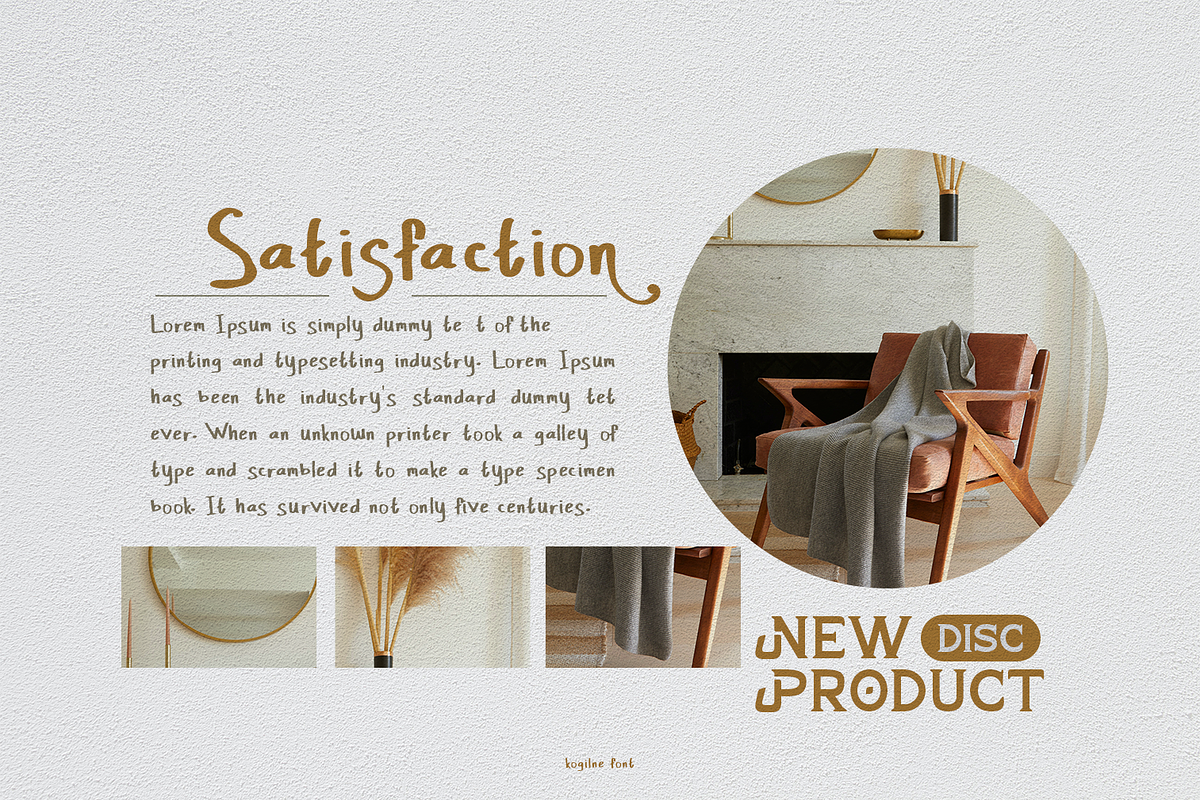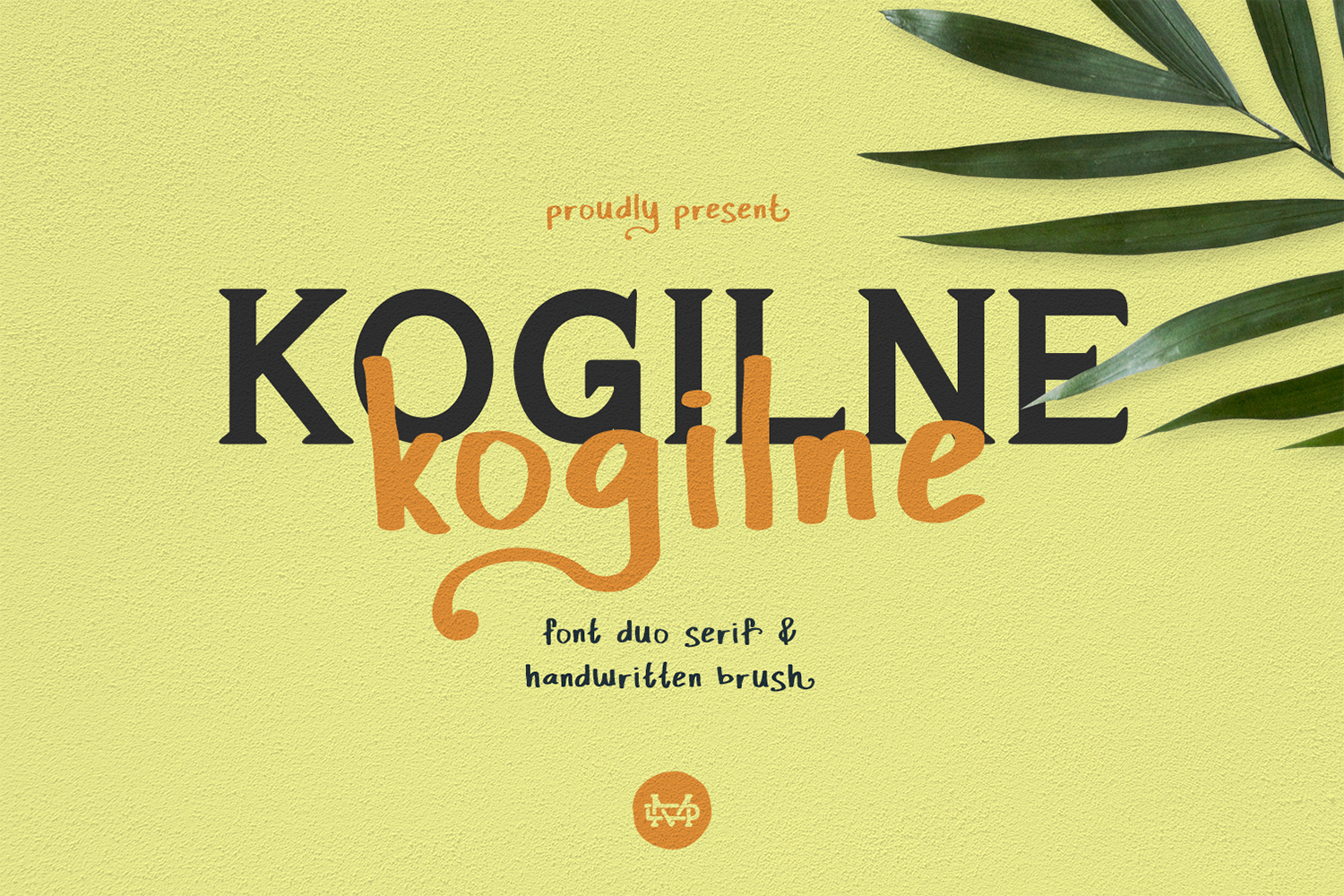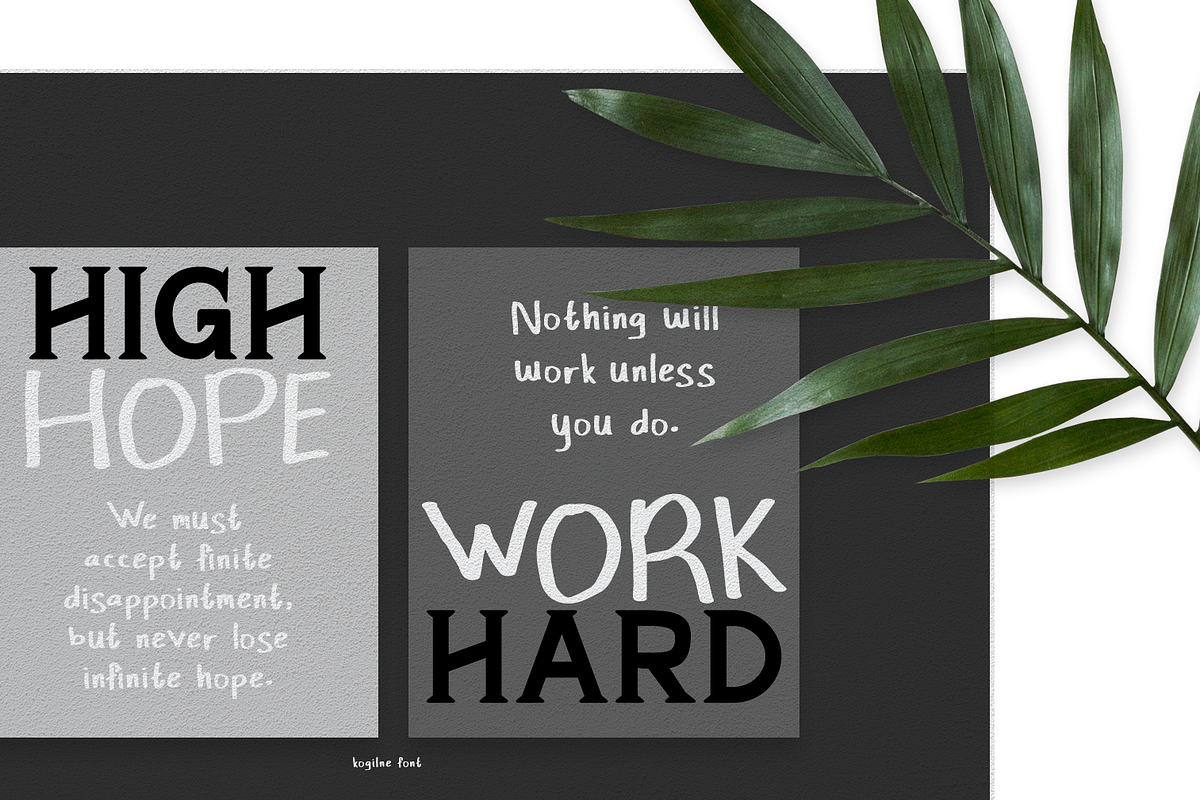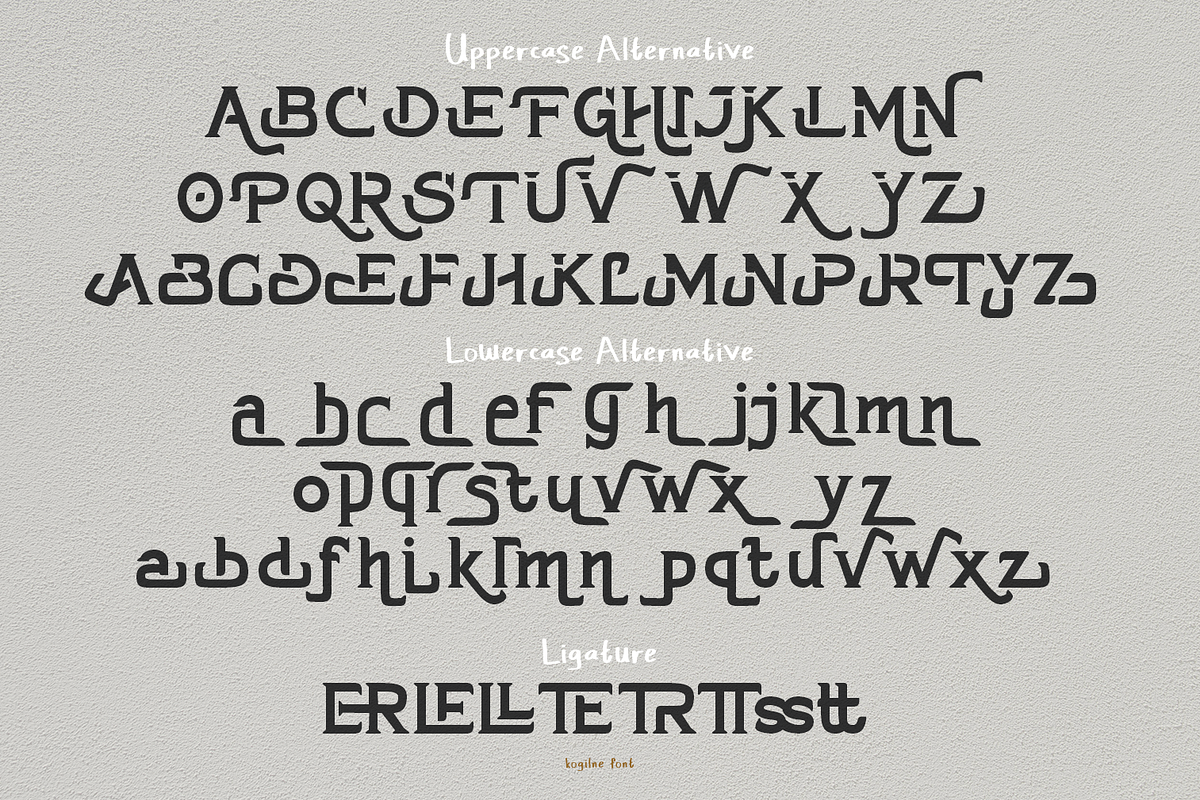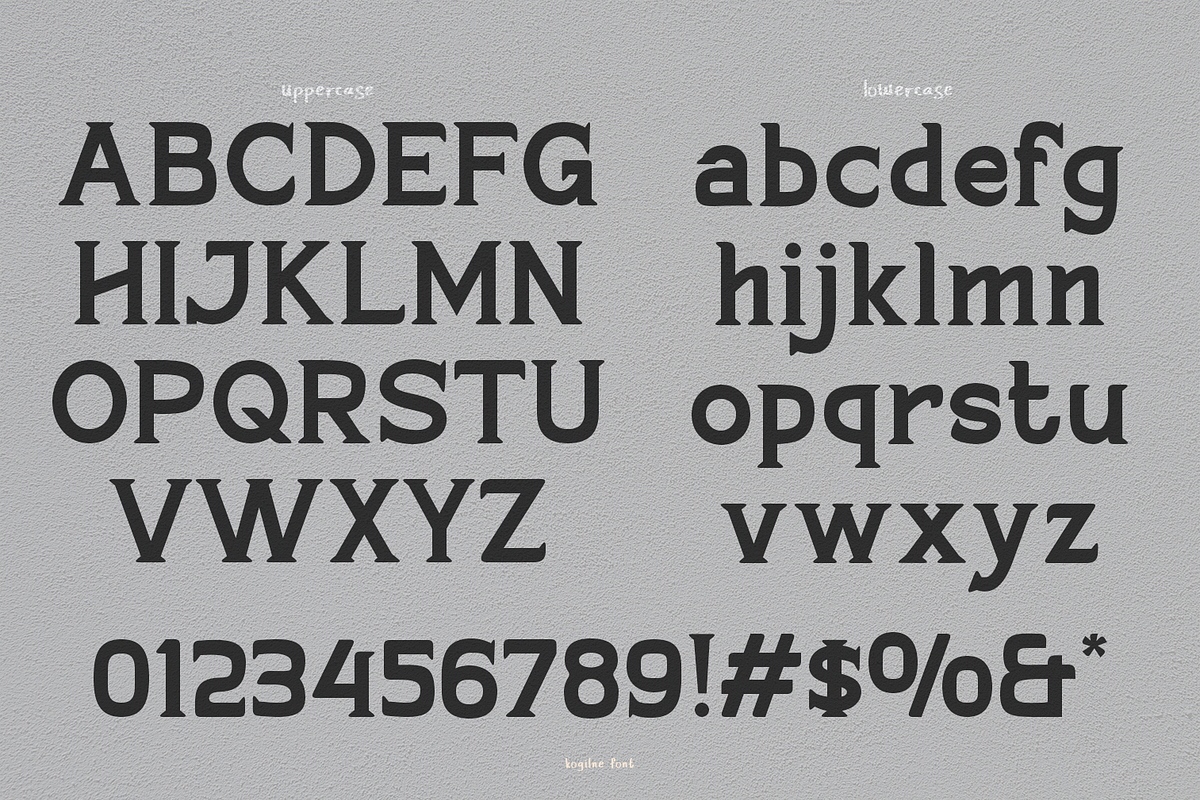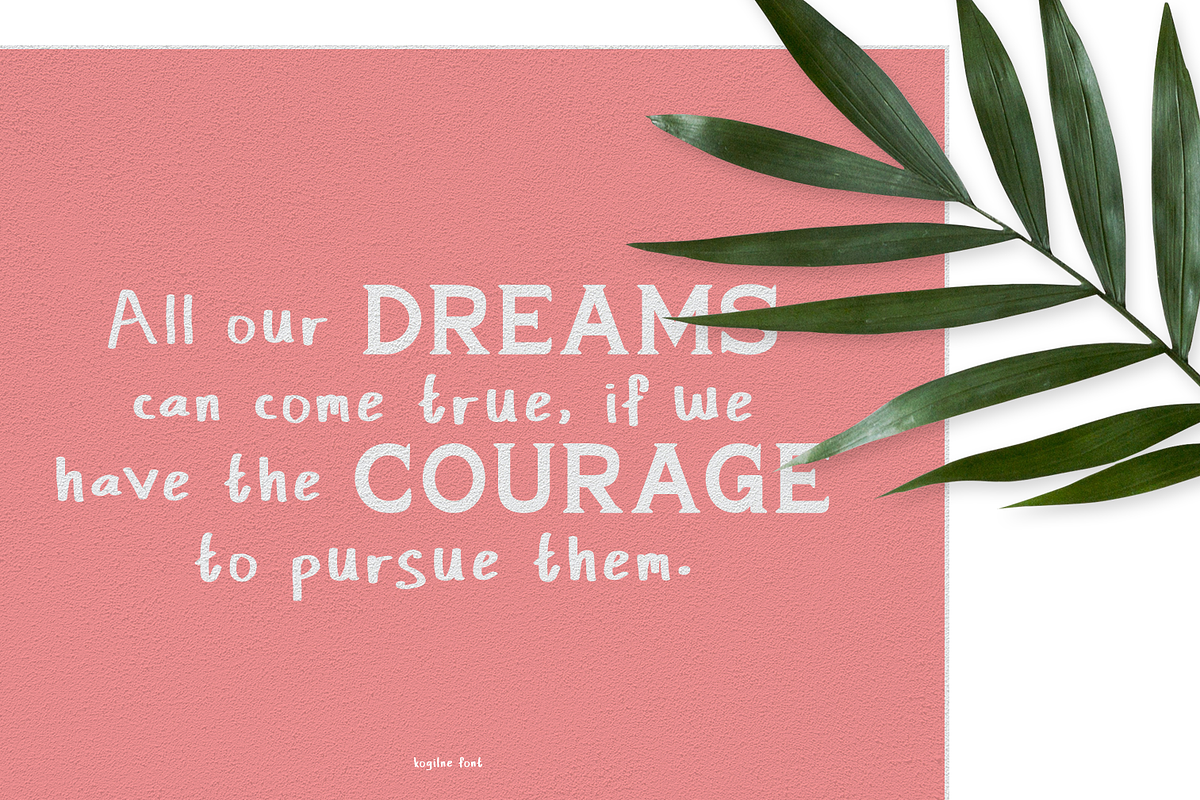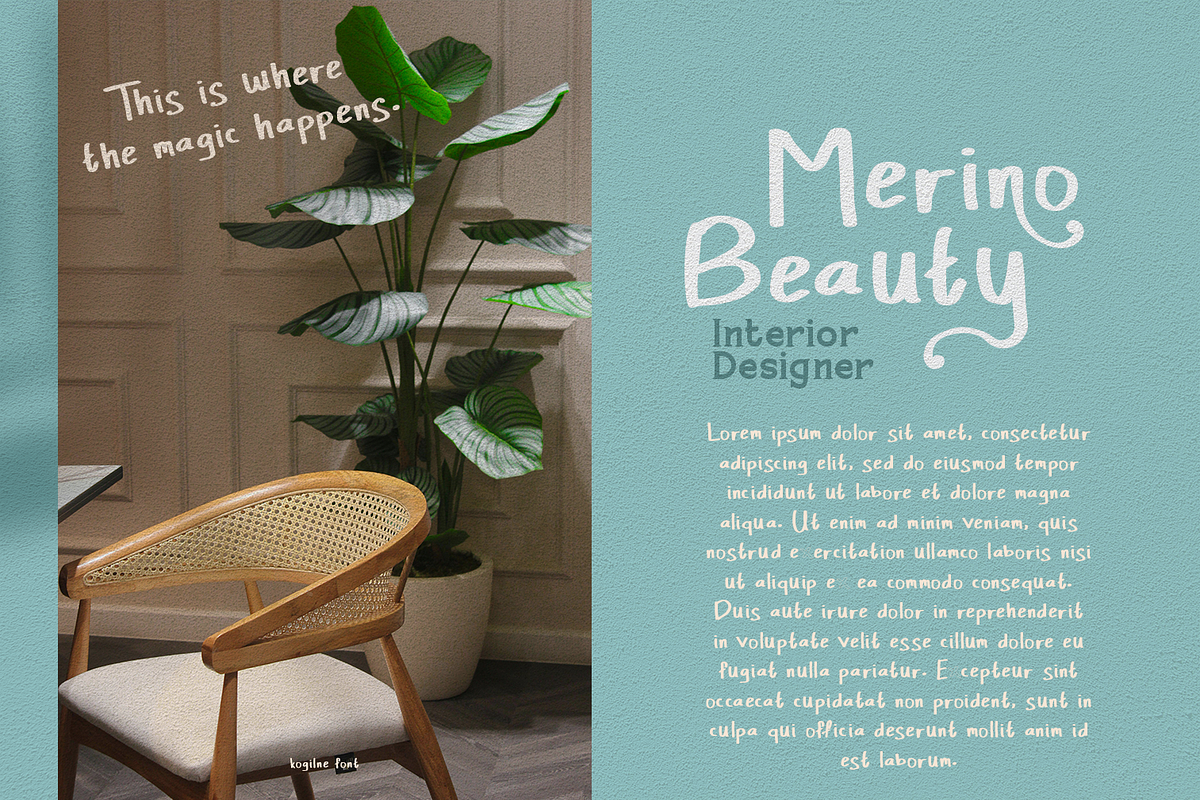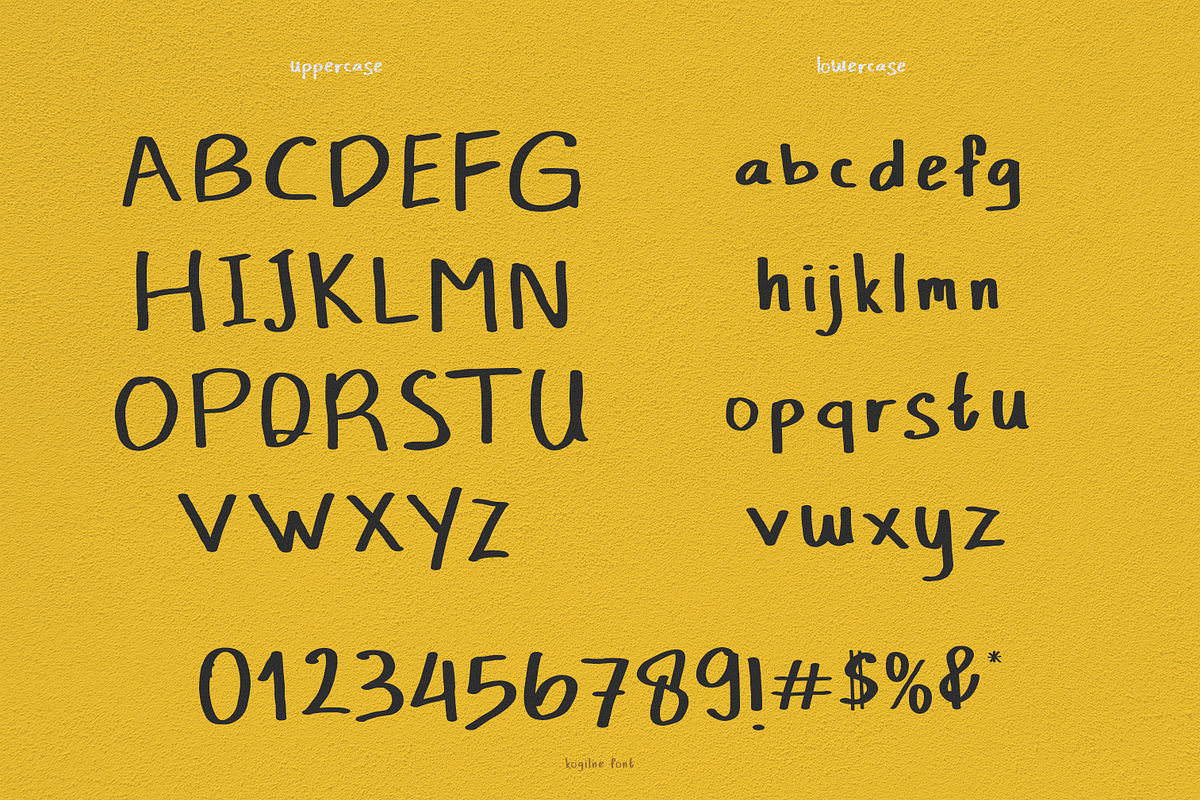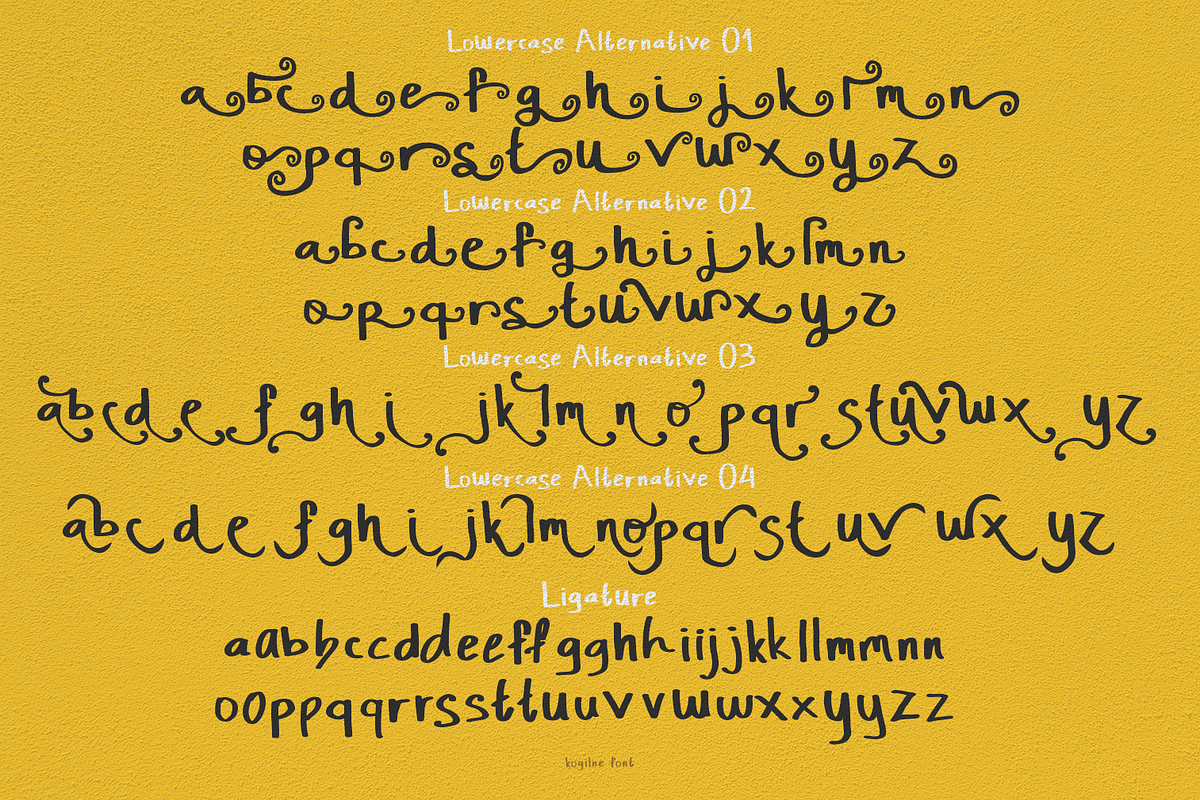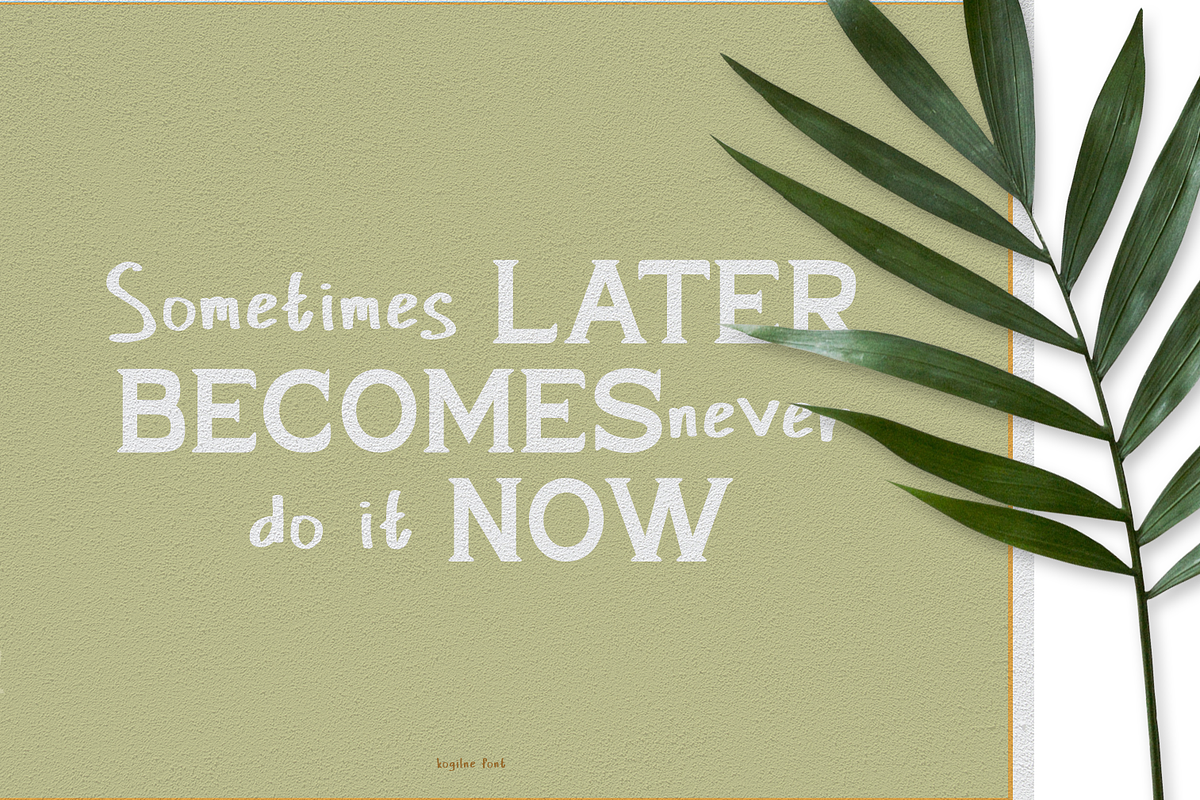
Kogilne Font Duo
Kogilne elegant and luxurious Duo serif font combined with natural handwriting. This font has a minimalist and simple look. However, this font brings a luxurious and attractive style to modern logos, websites, social media quotes, wedding stationery, and more.